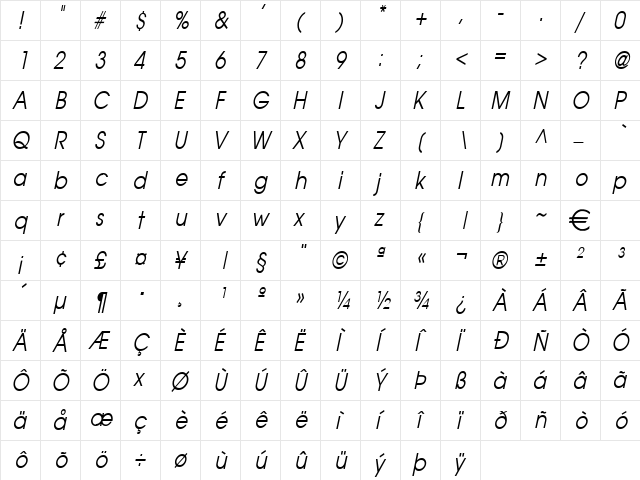
AtillaCondensed Italic Font Preview
Design Context for AtillaCondensed Typeface
AtillaCondensed takes a measured approach to typography — its balanced proportions and neutral character make it a reliable workhorse for both digital and print work. The dynamic lean of this cut emphasises speed and emphasis in any layout. Its narrow stance lets it pack a punch even in space-constrained designs.